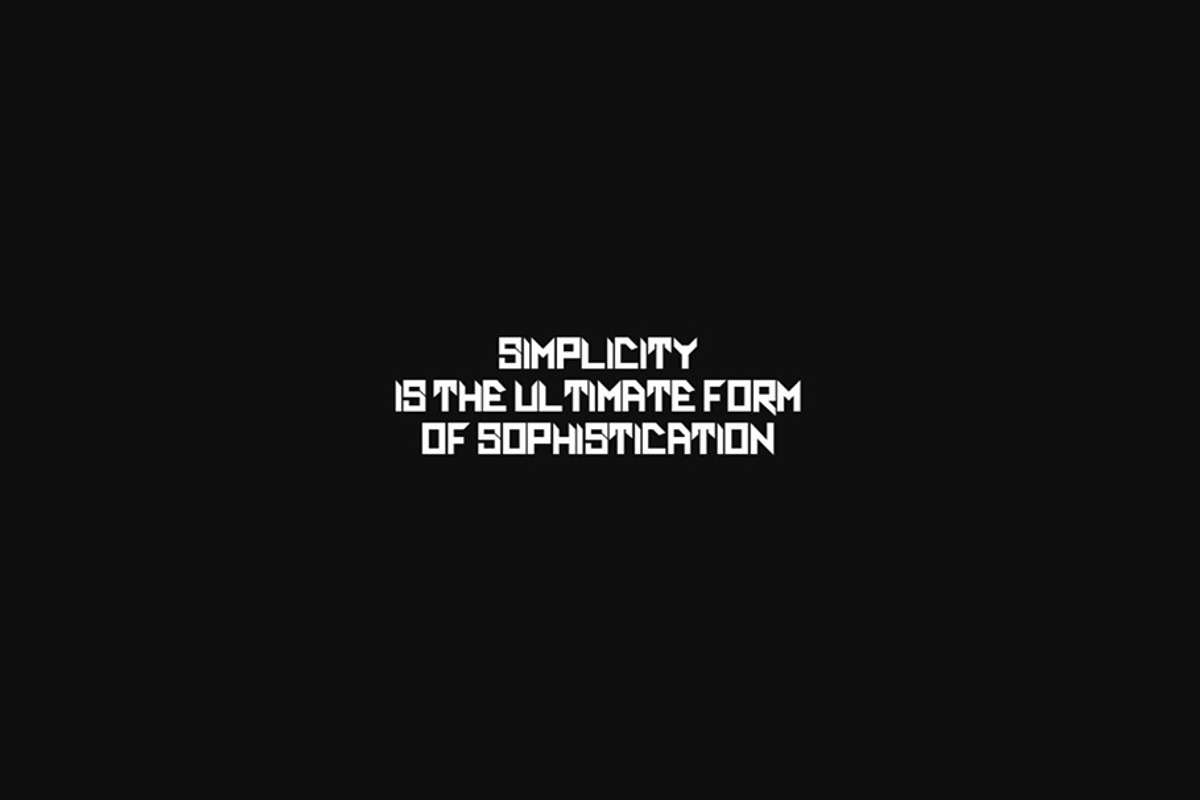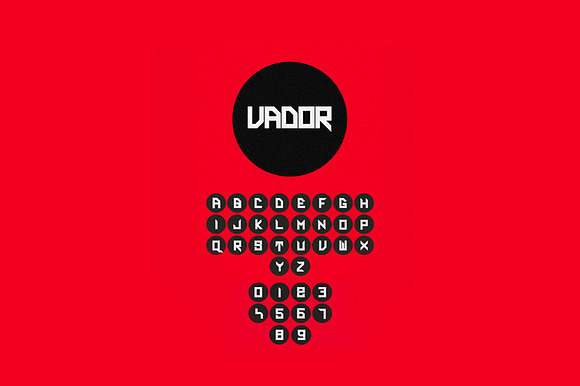
VADOR font
Vador was created in 2011 to be a large geometric and powerful font design. Vador is an uppercase font only.
- Vador is an uppercase font only.
Why VADOR font is worth a look
VADOR font by mockupbank fits naturally into Branding, posters, packaging, typography.